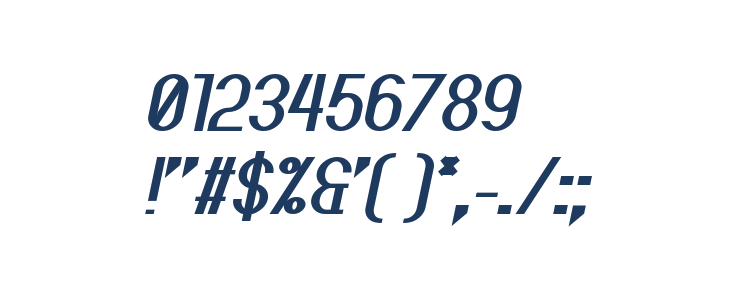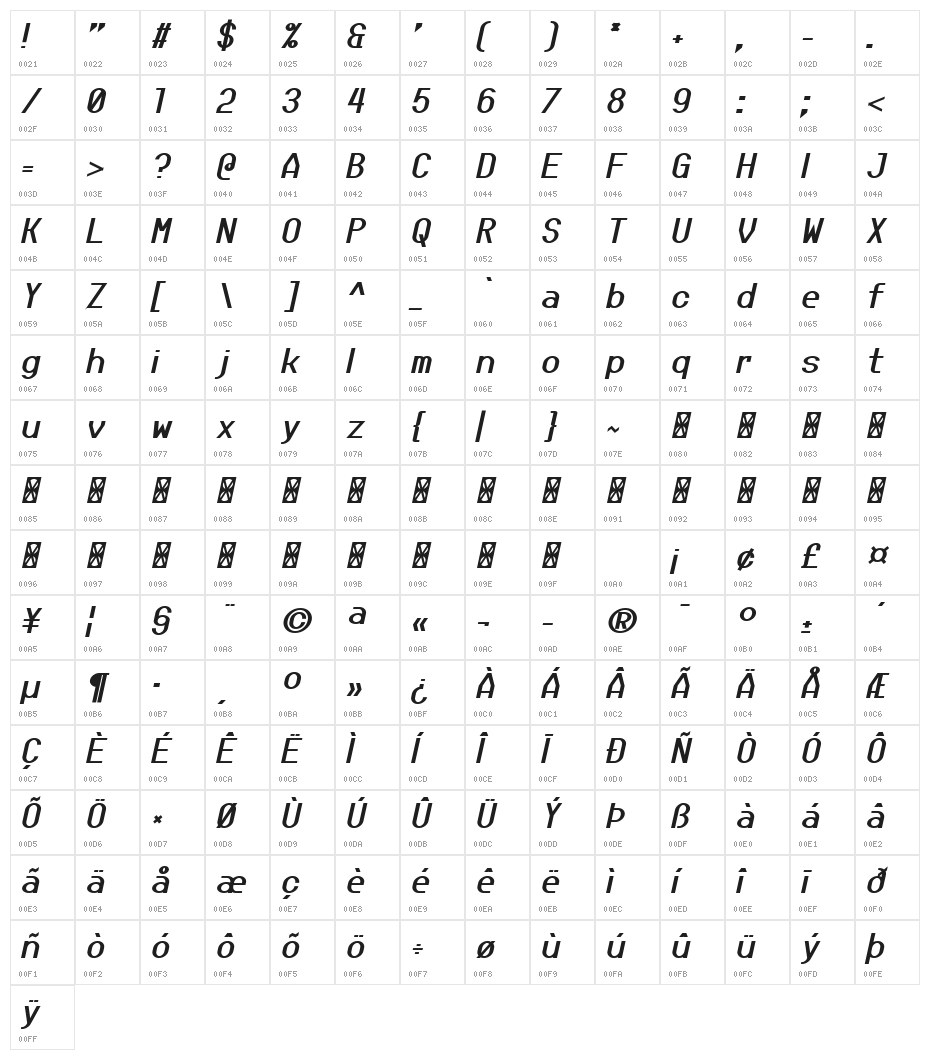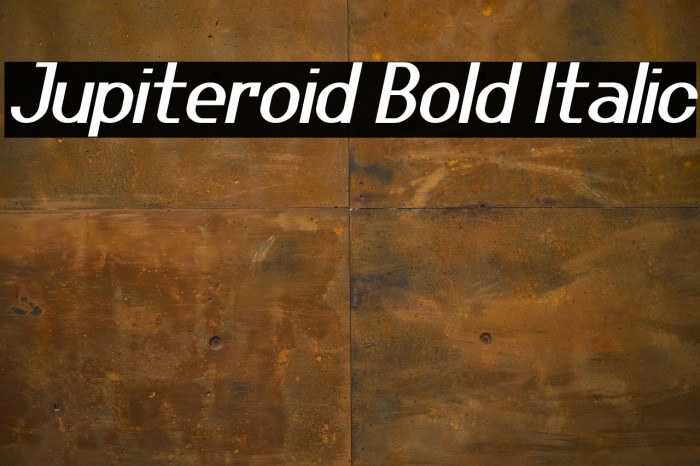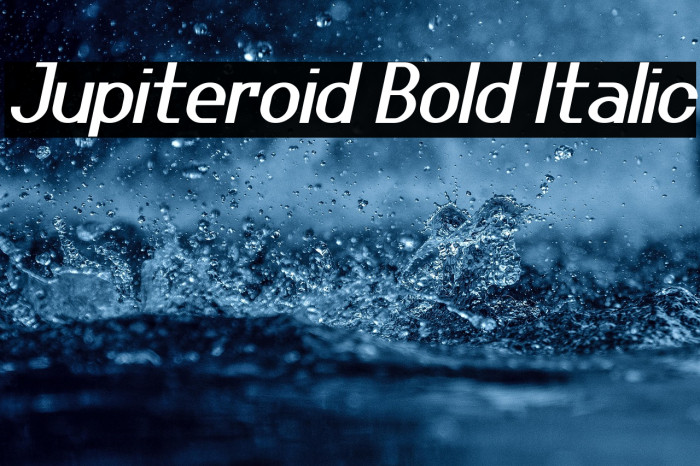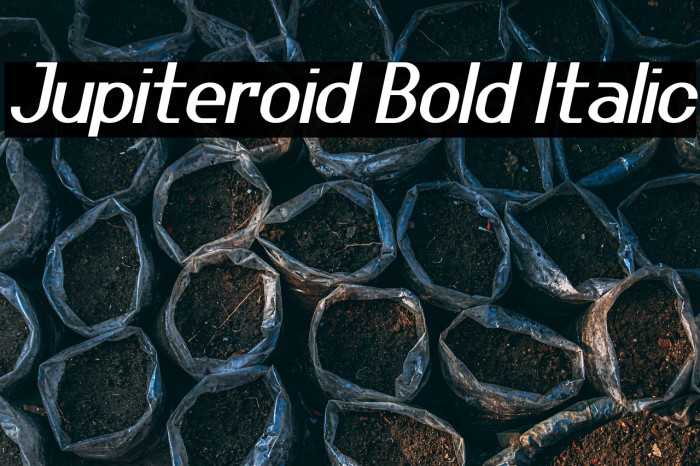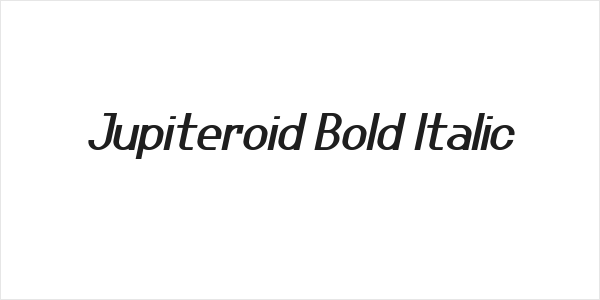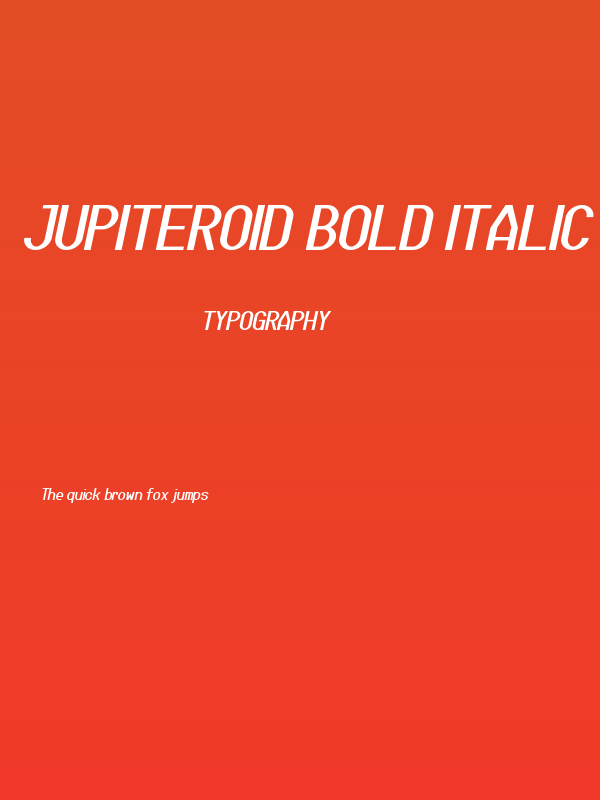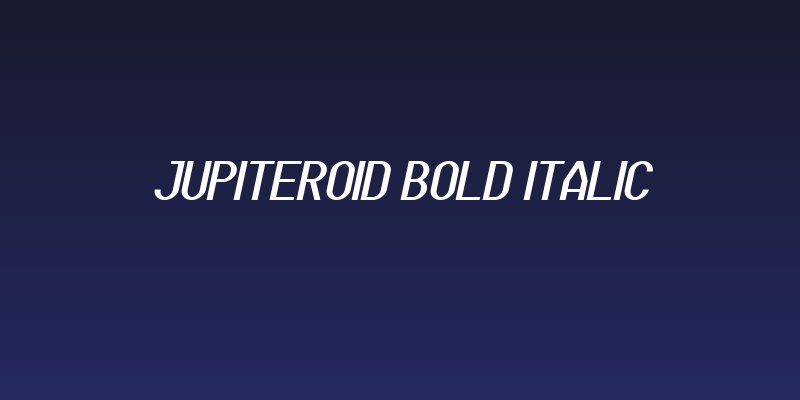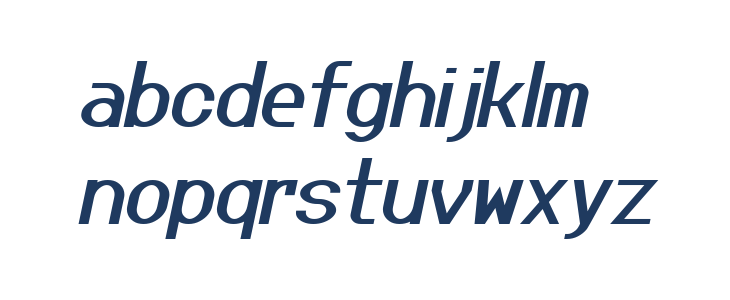
Jupiteroid Bold Italic Font
Jupiteroid Bold Italic Description
This font exhibits a dynamic and modern style with a bold and italicized appearance. The characters are slightly slanted, giving a sense of motion and energy. The strokes are consistent in thickness, providing a uniform look across all characters. The uppercase and lowercase letters are well-proportioned, and the numerals are clear and easily distinguishable. Special characters are included, maintaining the same stylistic features as the alphanumeric characters. This font is suitable for projects that require a contemporary and energetic feel.
| Proposed Projects | Ideal for branding, advertising, headlines, and digital media that require a bold and modern touch. |